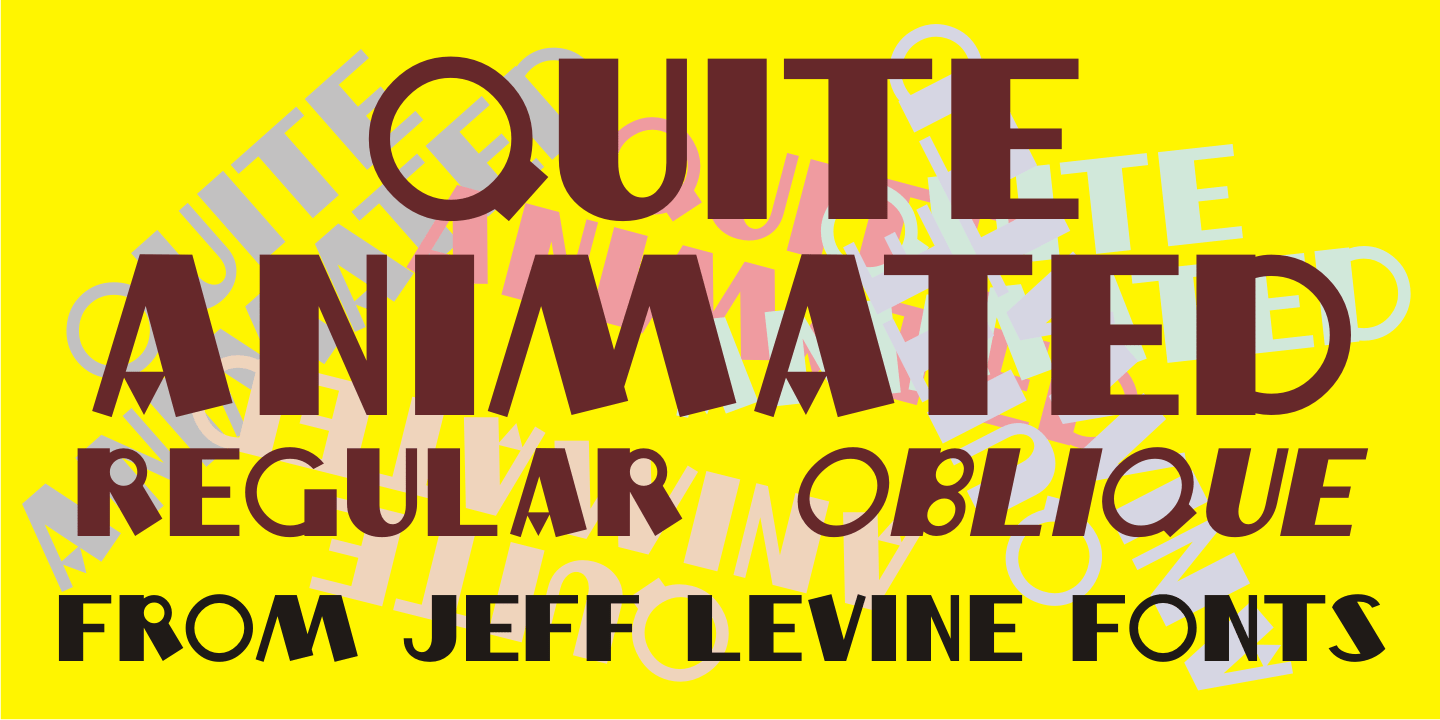
Quite Animated
Quite Animated JNL is based on hand-lettered Art Deco titling for a 1930 advertisement promoting a group of Columbia Pictures cartoons featuring George Herriman's Krazy Kat'. Available in regular and oblique versions.
Quite Animated JNL Regular by Jeff Levine Fonts